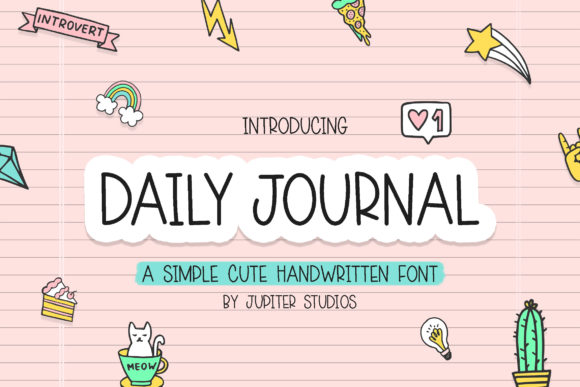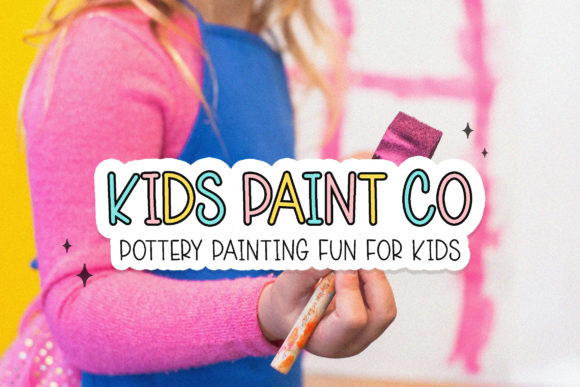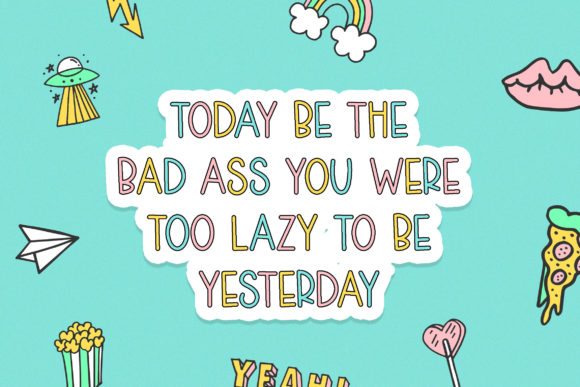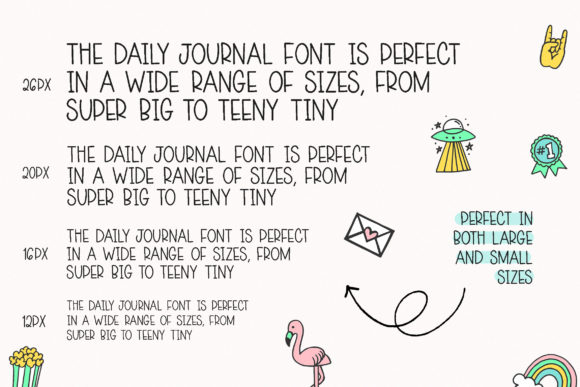
Daily Journal Font: A Cute Handwritten Font for Cricut & DIY Projects
About the Daily Journal Font
Elevate your designs with Daily Journal Font, a font that combines sophistication with readability. Daily Journal is a cute and simple lettered handwritten font that can be used for all chalkboard quotes or teaching material! Its authentic look will add a personal and realistic feel to your designs.
Daily Journal’s informal, friendly style makes it ideal for projects requiring a hand-drawn feel, such as branding for small businesses, children’s products, or social media graphics. It works well in short headlines, quotes, and logos, adding a touch of personal charm. However, its handwritten nature makes it unsuitable for large blocks of text or UI elements where legibility is paramount.
This font pairs well with clean sans-serif fonts like Open Sans or Lato for a balanced contrast, or with a more playful script font such as Pacifico for a consistent informal feel. Avoid pairing it with highly geometric or serious serif fonts as this would clash with Daily Journal’s casual aesthetic.
Its core personality is approachable and friendly, conveying warmth and approachability, making it perfect for projects emphasizing authenticity and human connection.